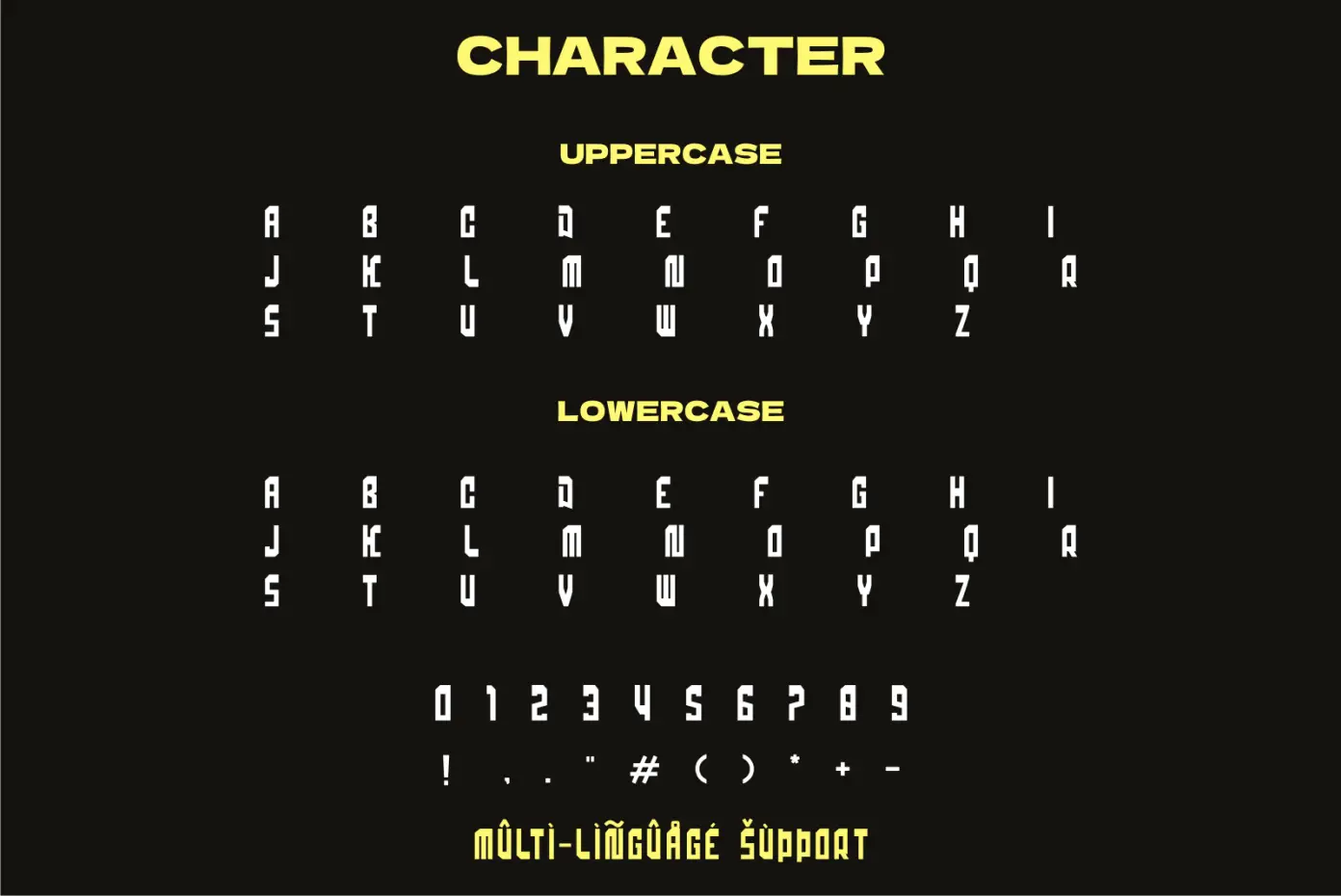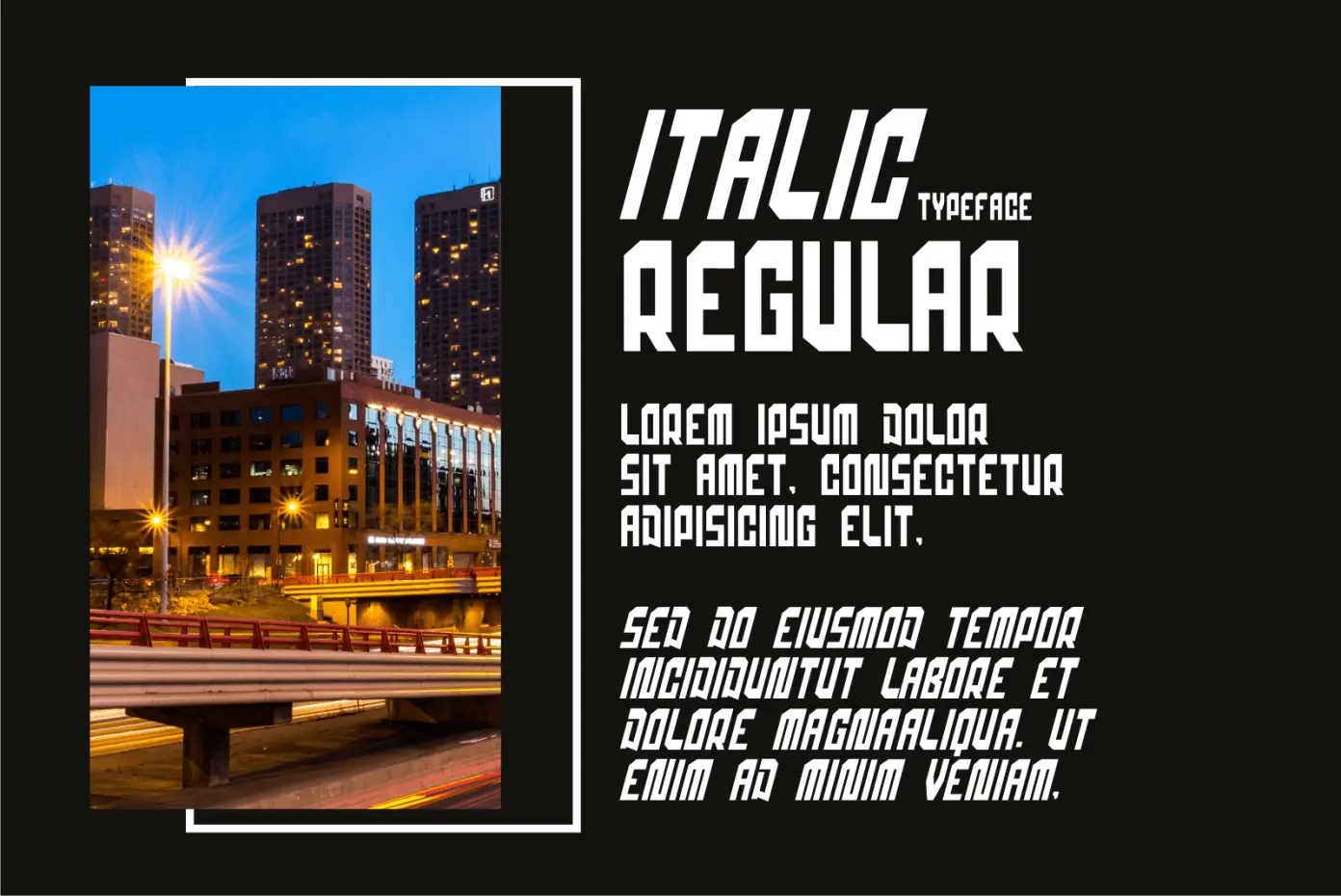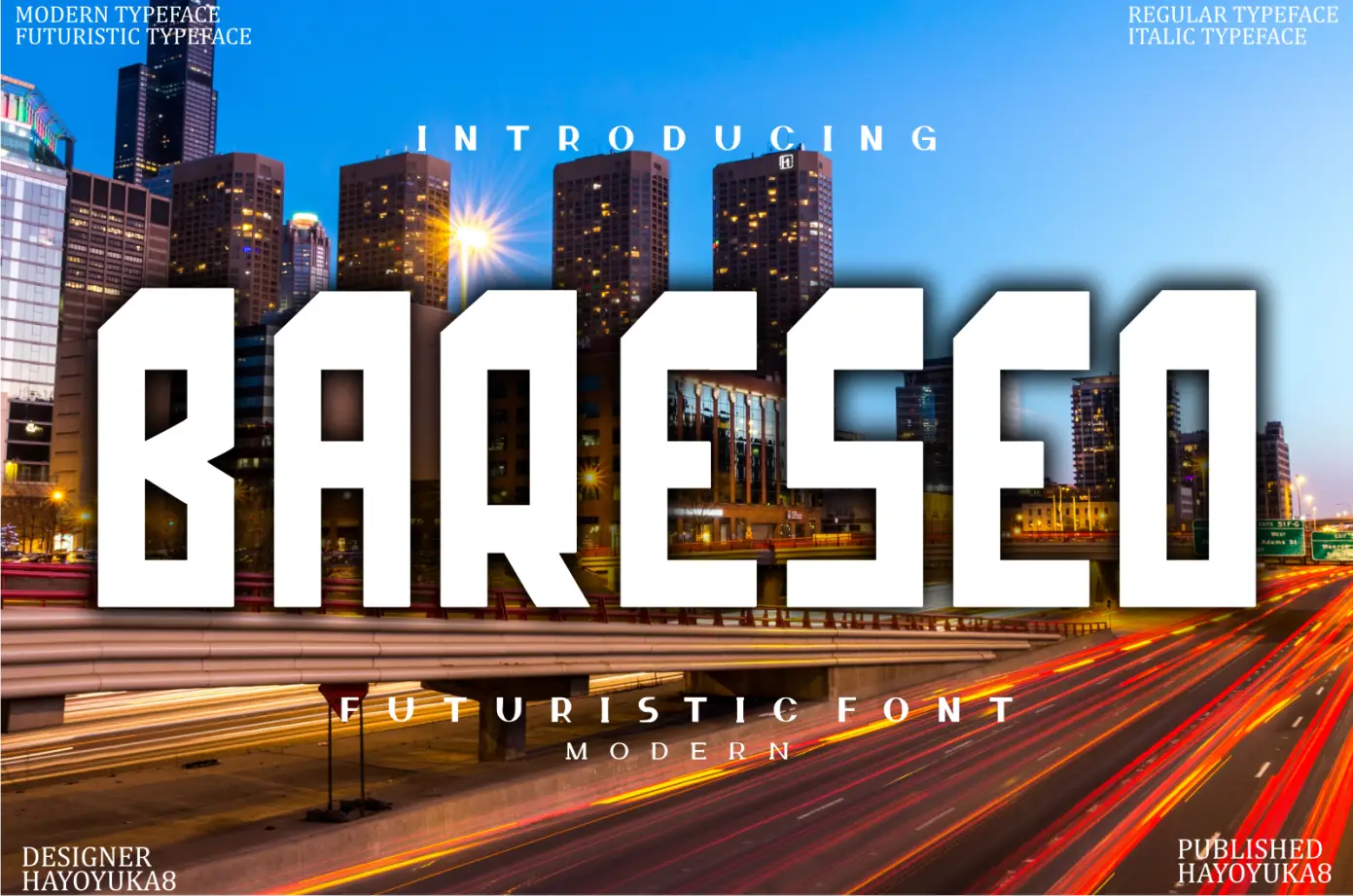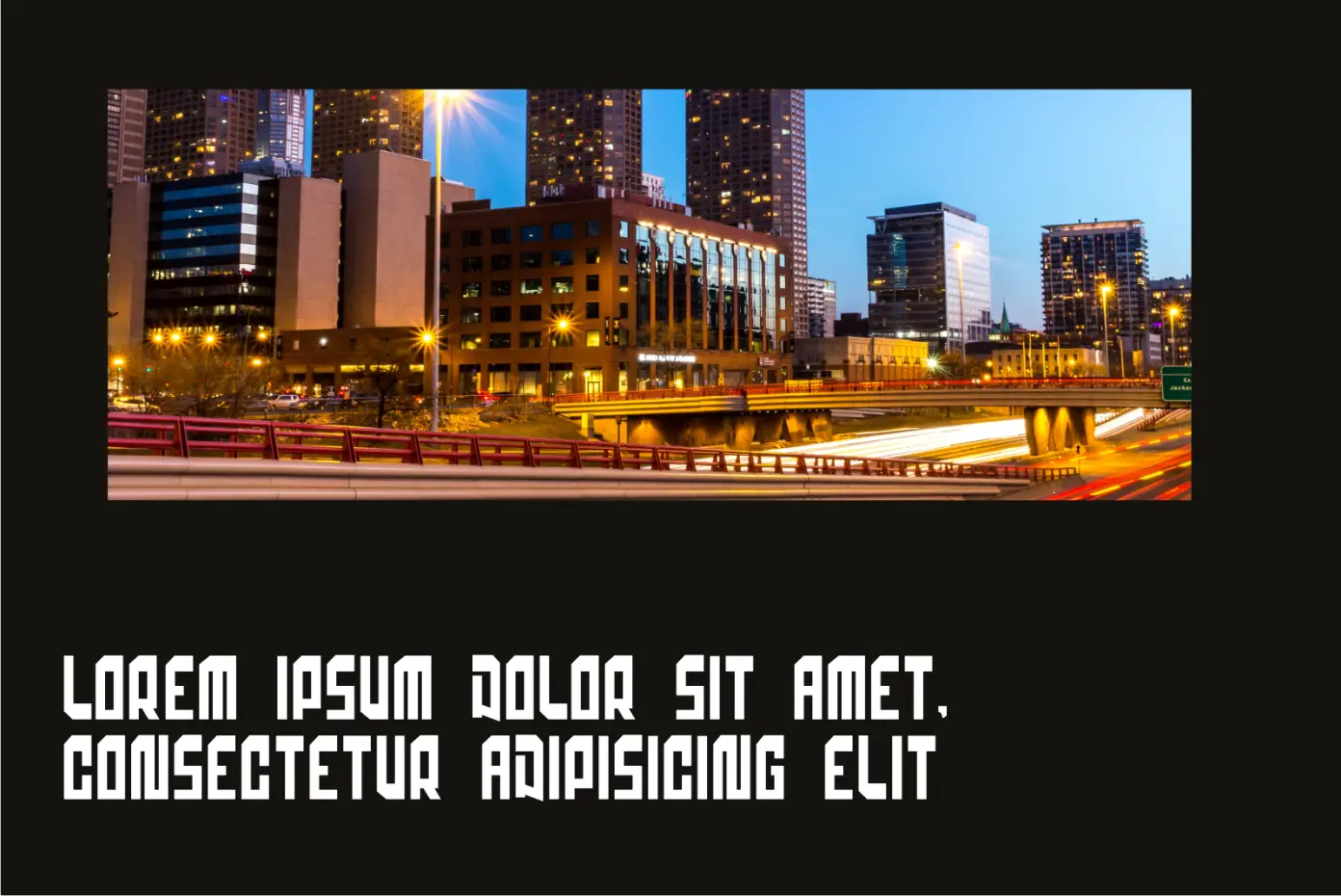
Introducing the Bareseo Display Font, a stunning typeface designed to make a bold statement. This font features a unique blend of modern and classic influences, making it perfect for a variety of applications.
- Stylish and eye-catching design
- Uppercase and lowercase letters included
- Special characters and punctuation
Ideal for branding, logos, web design, and print materials, the Bareseo Display Font adds a touch of elegance and sophistication to any project.